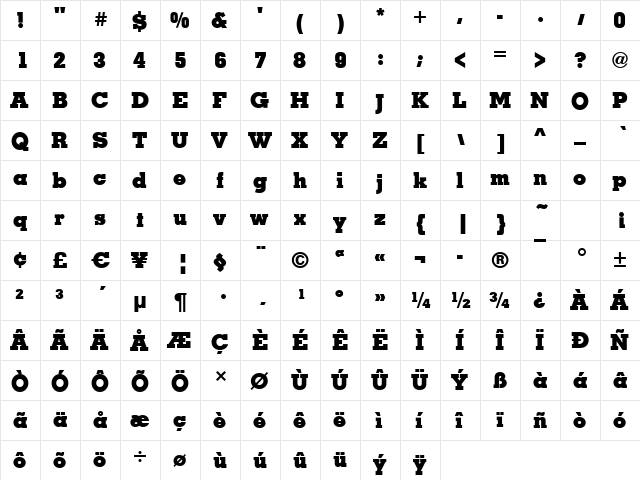
Missouri-Bold Regular
Design Context for Missouri-Bold Typeface
Missouri-Bold takes a measured approach to typography — its balanced proportions and neutral character make it a reliable workhorse for both digital and print work. The heavy weight commands attention and anchors typographic hierarchies.